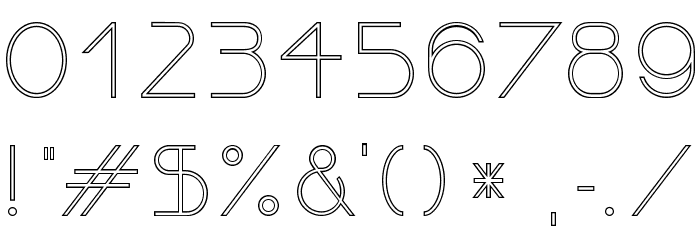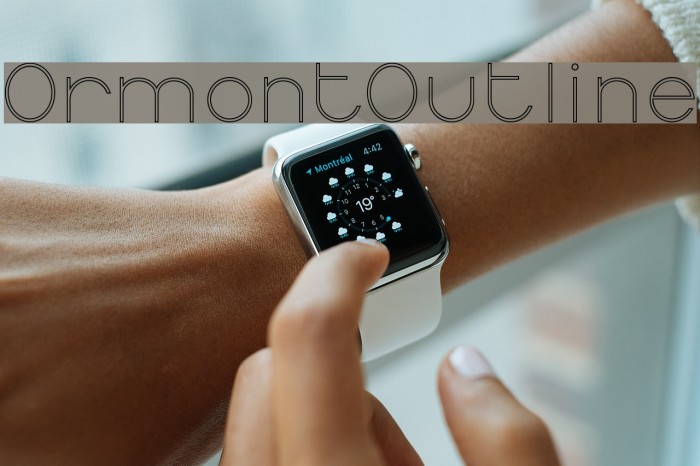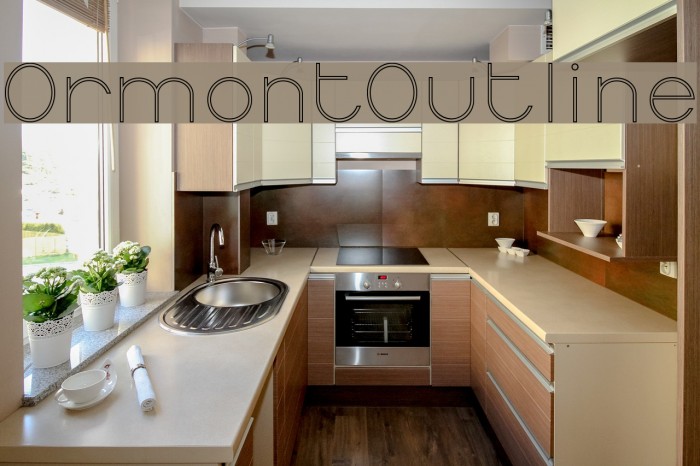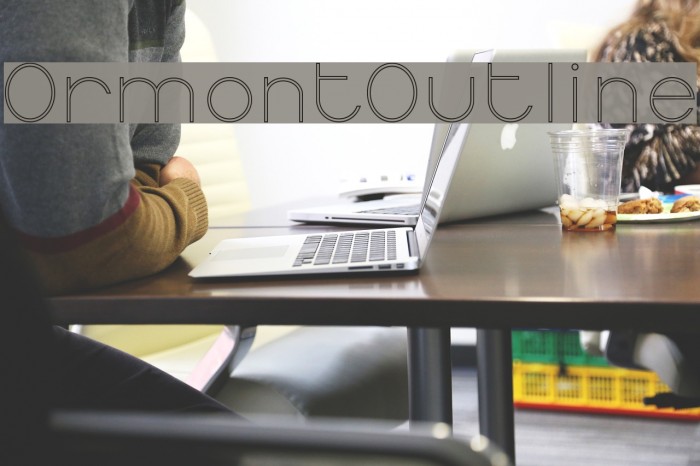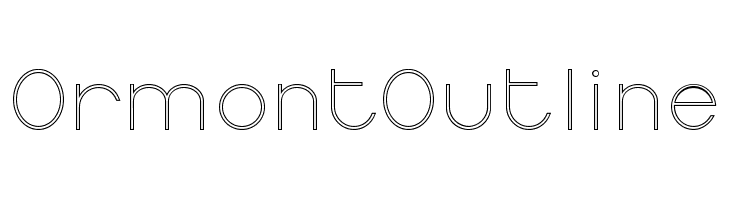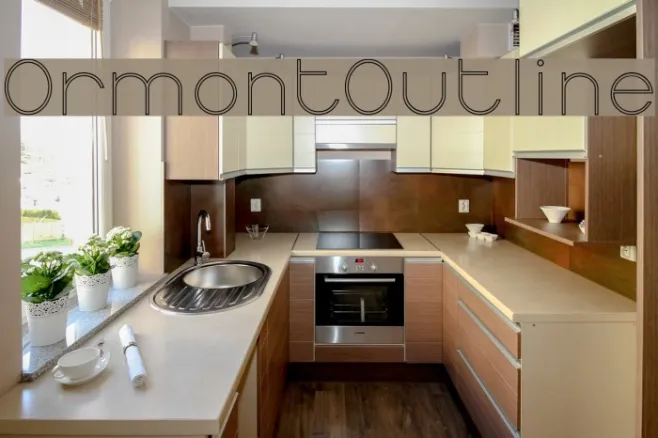
OrmontOutline Font
This font features a modern, geometric outline style that emphasizes clean lines and minimalistic design. Each character is crafted with precision, showcasing a consistent stroke width that forms an elegant and airy appearance. The uppercase letters exhibit a strong architectural feel, while the lowercase letters maintain a harmonious balance with rounded edges. The numerals and special characters are designed to complement the overall aesthetic, making them suitable for a variety of applications. The font's open structure and clear legibility make it ideal for projects that require a contemporary and sophisticated look.
A modern, geometric outline font with clean lines and minimalistic design.
- Proposed Projects: Ideal for branding, logos, headlines, and editorial design where a contemporary and sophisticated look is desired.
- Use Case: Headlines, Logos, Branding